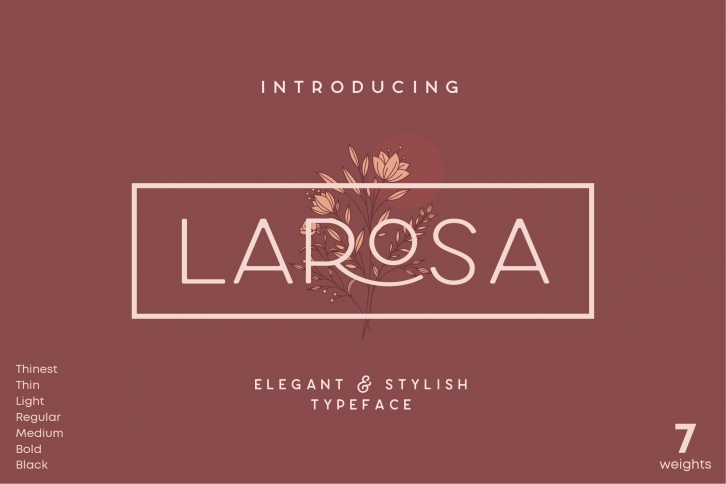
Larosa Sans- 7 Elegant Typeface is a gorgeous font that was realeased on July 31, 2019. The font can be used in many style contexts and design environments. Perfect for invitations, magazines, websites, logos, and more! It was designed by NEWFLIX.Bro and the file size is 16.36 MB. Thanks for checking out this font!